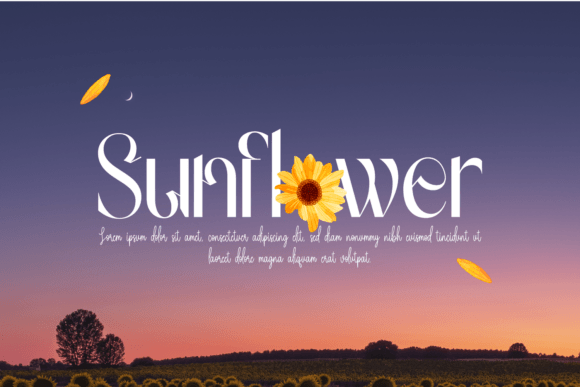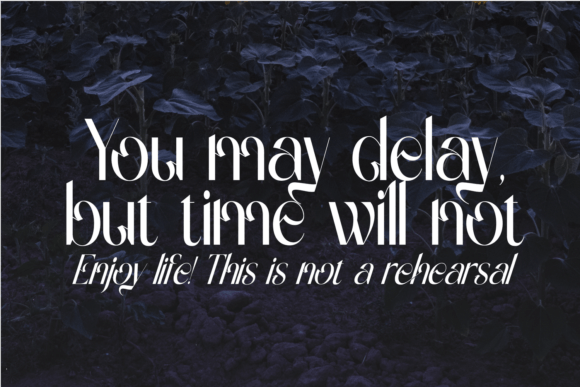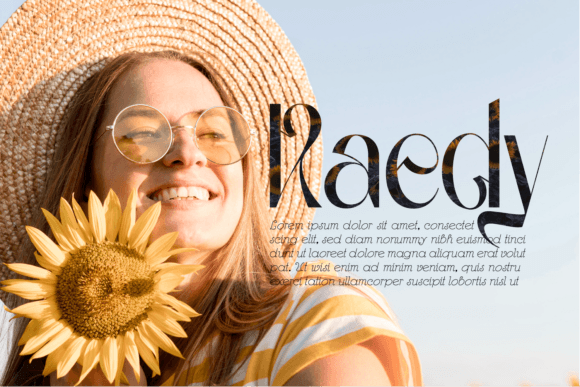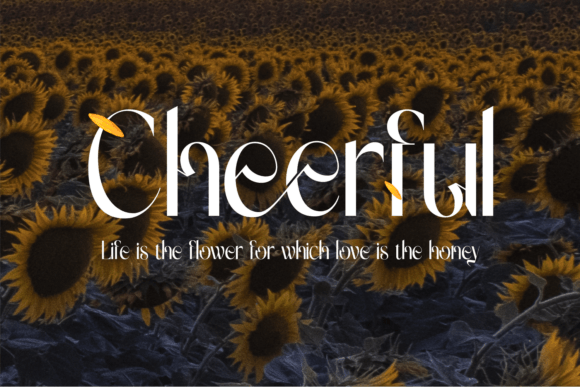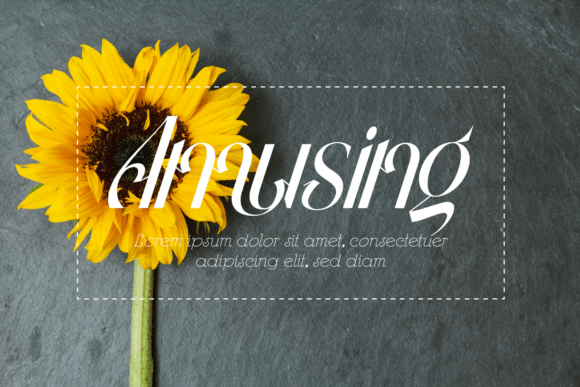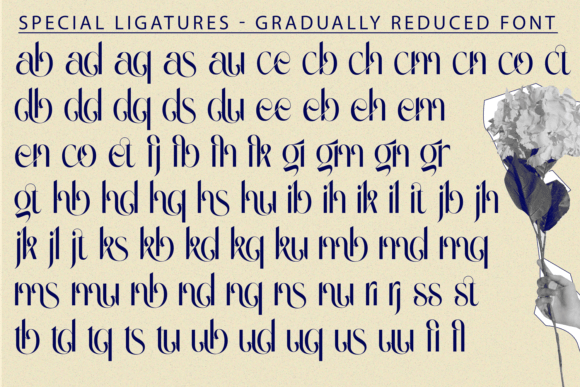
First Impressions: A Modern Serif Marvel
Gradually Reduced is a stunning, modern serif font that exudes professionalism and sophistication. Its clean lines, bold attitude, and crisp edges make it perfect for a wide range of design applications, from branding and editorial layouts to sleek digital designs.
- ✨ Contemporary design: Gradually Reduced’s sleek, modern aesthetic is perfect for designs that require a touch of sophistication.
- ✅ PUA encoding: With PUA encoding, accessing glyphs and swashes is a breeze, giving you maximum creative control.
- 💡 OpenType features: This font comes with a range of OpenType features, including stylistic alternates and ligatures, to help you create unique and eye-catching designs.
While Gradually Reduced is an exceptional font, there are a few minor quirks to be aware of:
- ⚠️ Some characters may require manual kerning: While the font is generally well-spaced, some character combinations may require manual kerning for optimal results.
- 🤔 Limited language support: Gradually Reduced may not support all languages, so be sure to check the font’s specifications before using it for multilingual projects.
The Designer Inspiration Behind Gradually Reduced
While the true story behind Gradually Reduced remains a mystery, it’s clear that the font was designed with the modern designer in mind. Imagine a team of typographers and designers coming together to create a font that would push the boundaries of modern serif design. With Gradually Reduced, they’ve succeeded in crafting a font that’s both stylish and versatile.
Q: What is PUA encoding, and how does it benefit designers?
A: PUA (Private Use Area) encoding allows designers to access a range of glyphs and swashes that can be used to add creative flair to their designs. With Gradually Reduced, PUA encoding makes it easy to access these features and take your designs to the next level.
Q: Is Gradually Reduced suitable for body text?
A: While Gradually Reduced is a beautiful font, it’s best suited for headlines, titles, and short paragraphs. For body text, consider using a font with more traditional serif proportions.